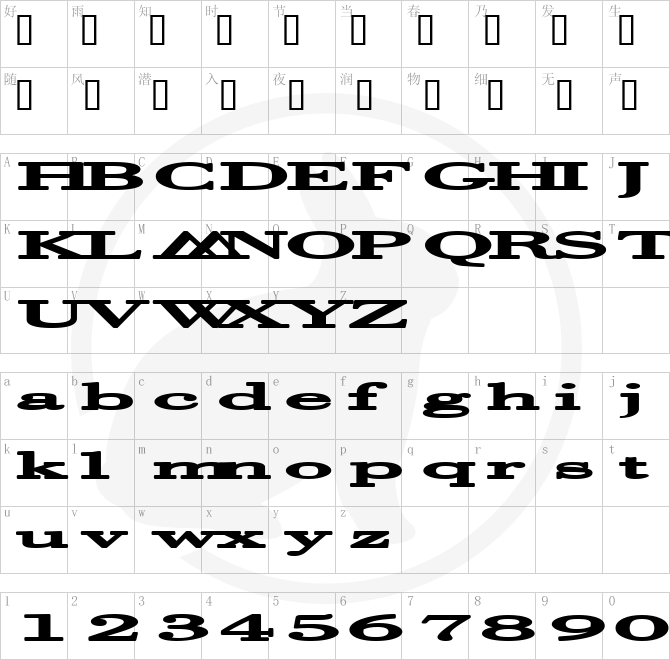
- Font Name:Halcyonia
Halcyonia.ttf is a very beautiful artistic font, Halcyonia.ttf is widely used in the design and printing of various books and pictures,Halcyonia.ttf has a strong visual impact,Halcyonia.ttf is a commonly used font in newspapers, magazines and books, and is used in posters, e-commerce Poster design, store design, logo design, font design and other fields.Halcyonia.